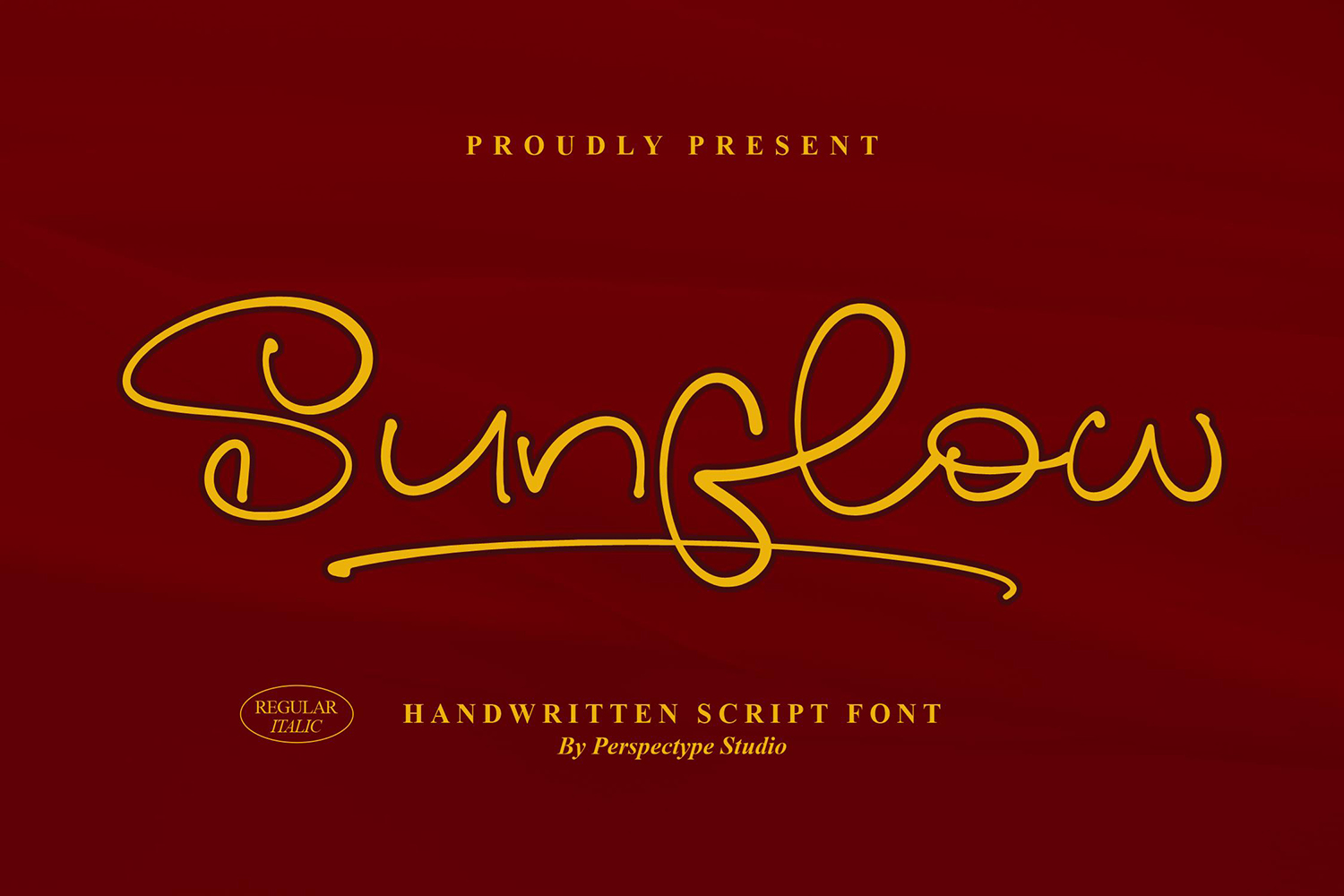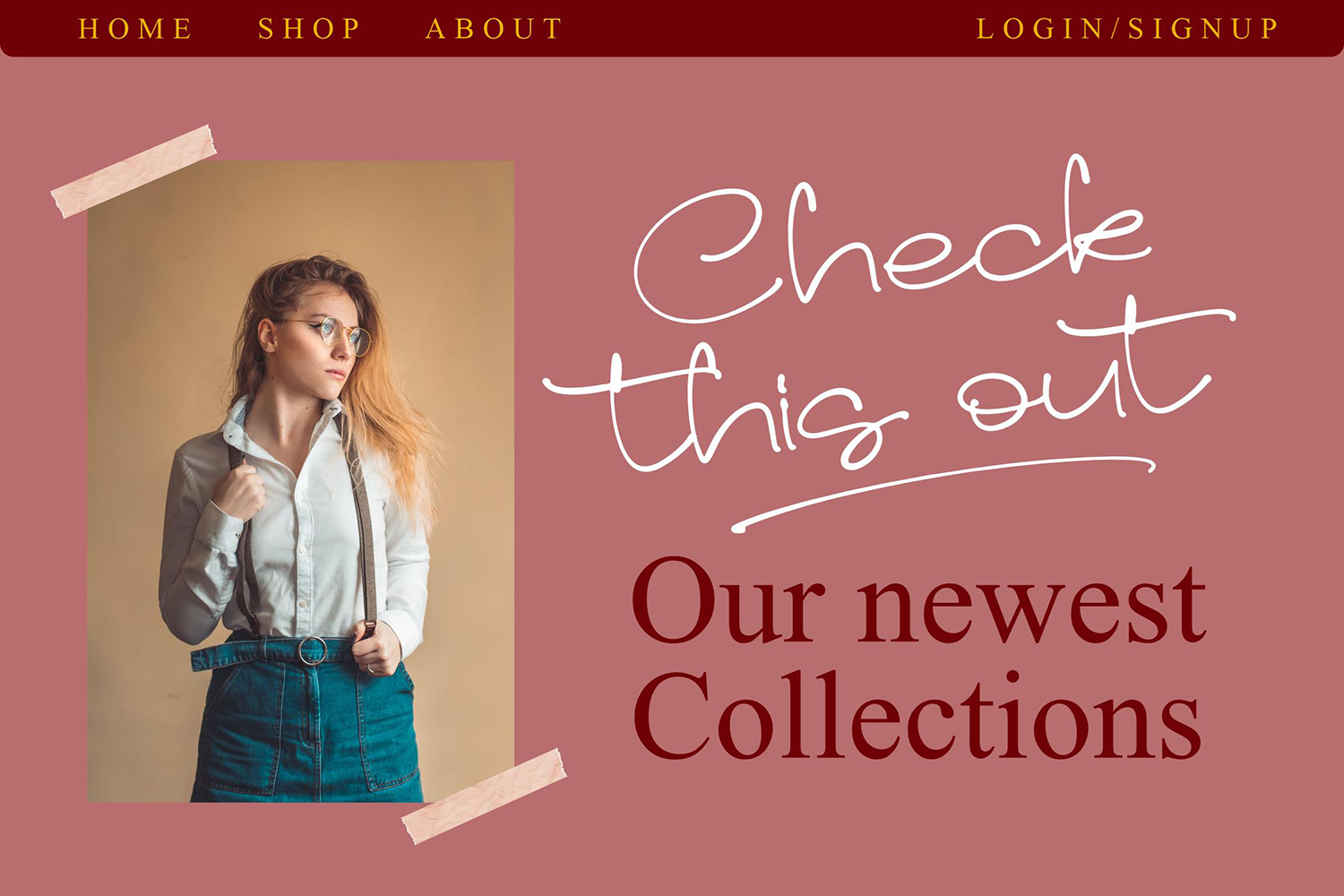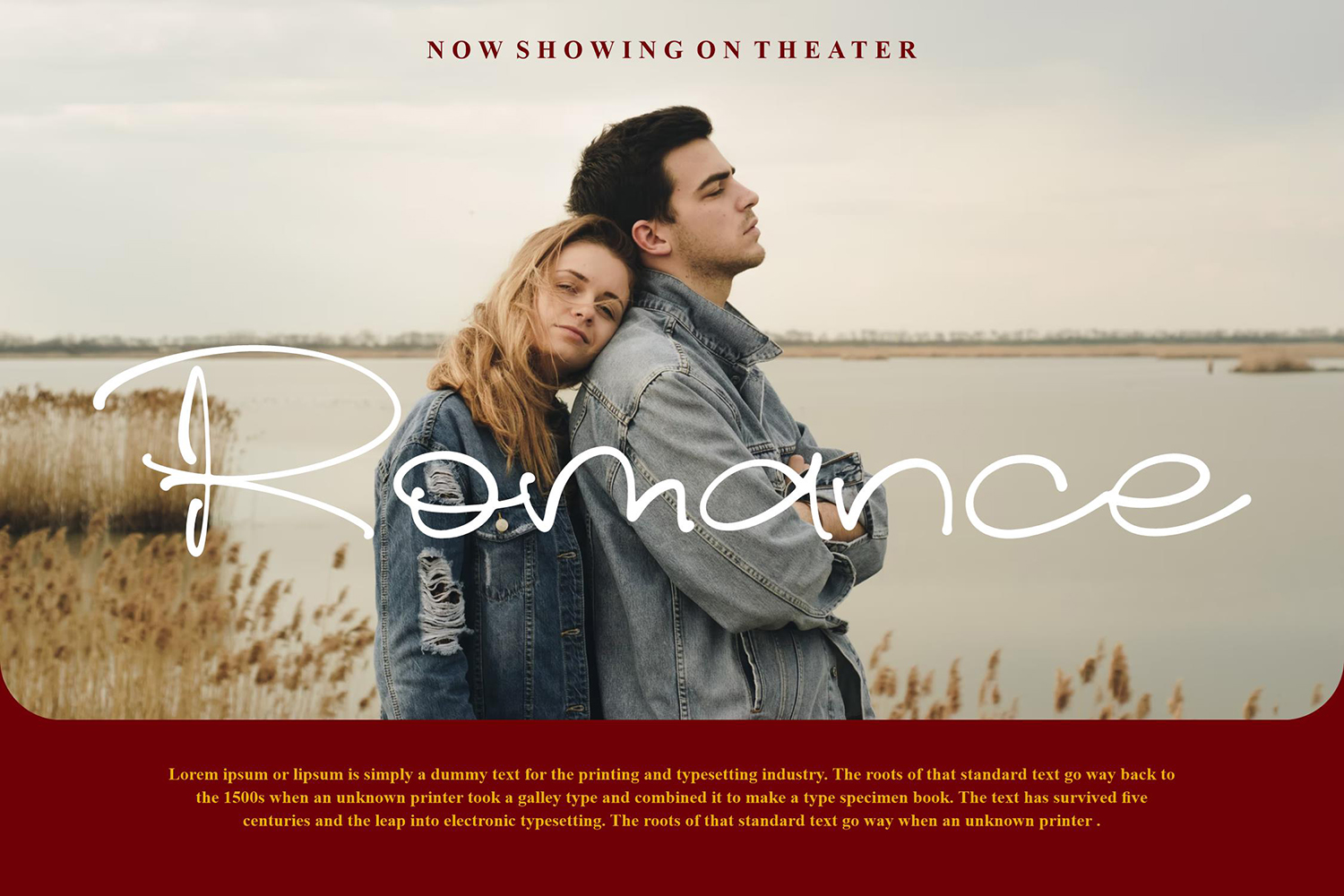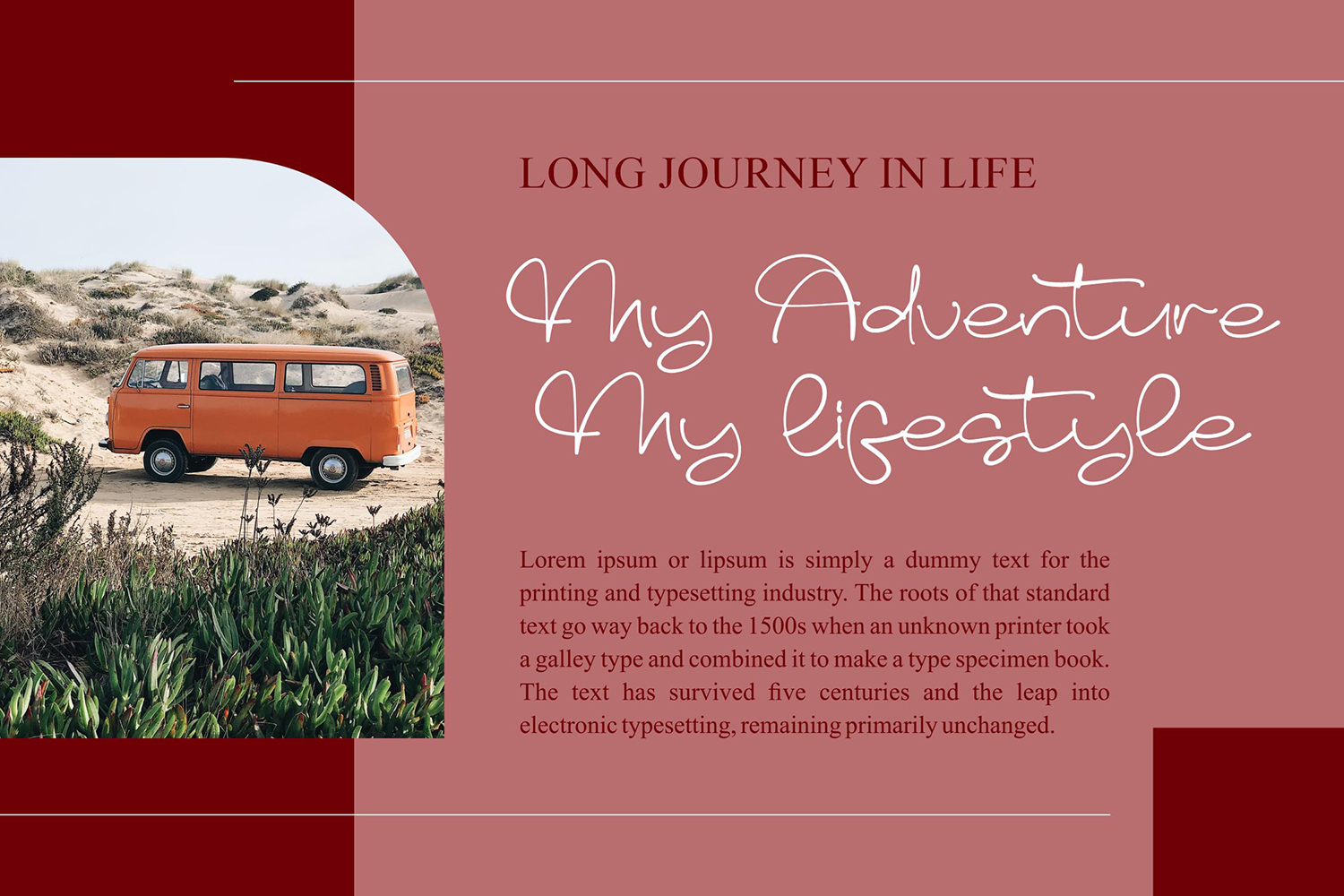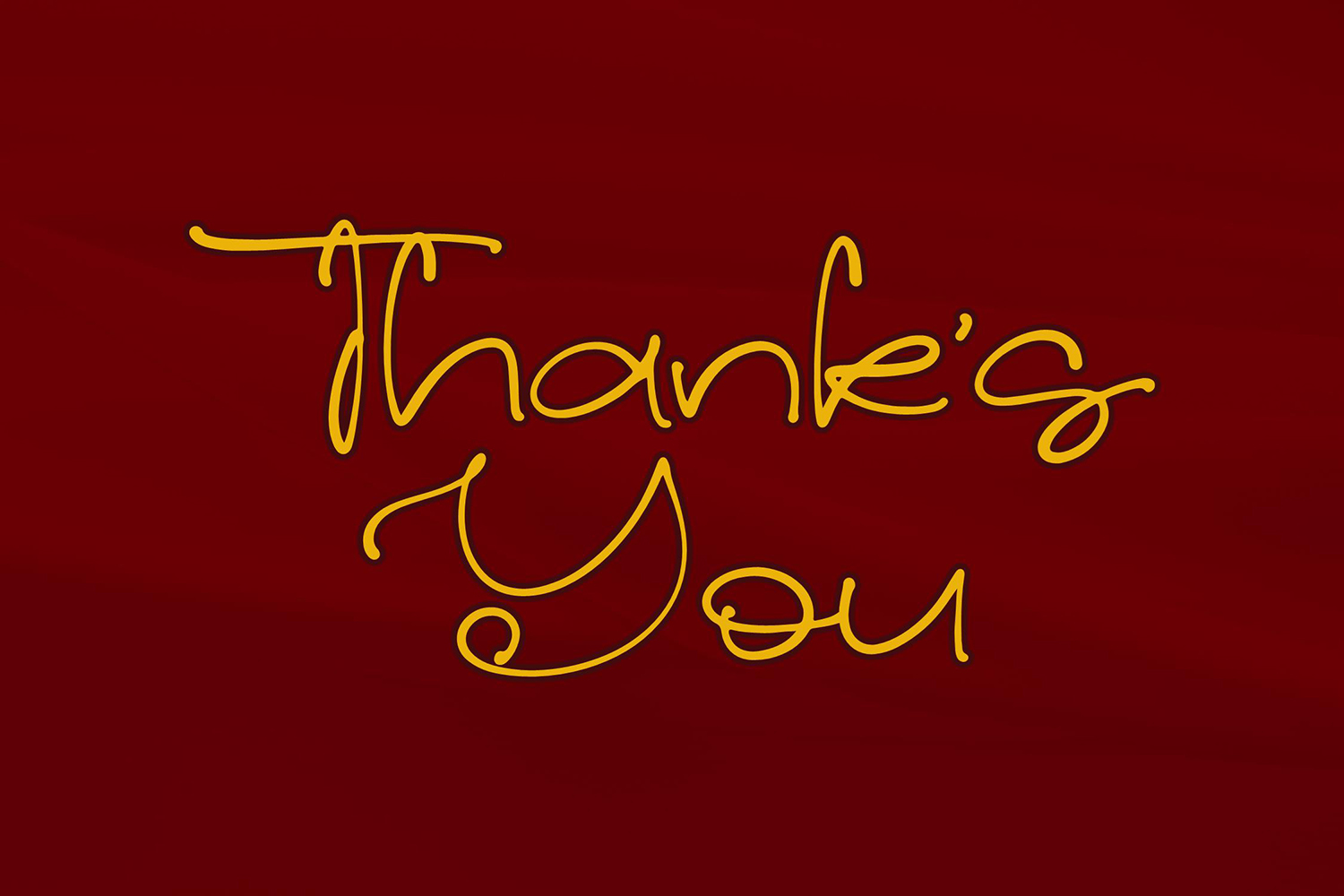
Sunflow Free Font
Sunflow Free Font is a beautiful expression of art and emotion. Its organic lines and flowing letters capture the essence of hand-written messages, making it perfect for personal and intimate projects. The handwritten style of this font brings a touch of warmth and personal connection to any design project, making it ideal for greeting cards, wedding invitations, and personal branding. The playful curves and variations in each letter evoke feelings of joy, creativity, and a carefree spirit, making this font perfect for capturing the essence of life’s special moments. Whether you’re looking to add a touch of charm to your designs or simply want to evoke feelings of happiness and lightheartedness, the Script Handwritten Sunflow Free Font is a must-have for any brand looking to make an emotional connection with its customers.